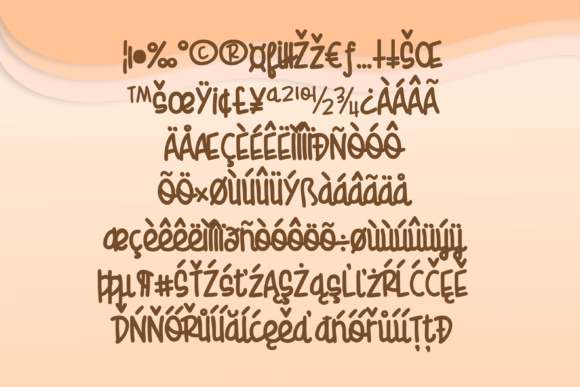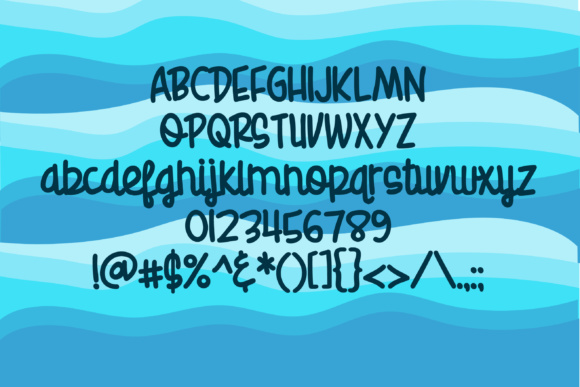
ZP Seaside Font
db-ku.com - Script & Handwritten -- This hand-written quasi-script is a fun, youthful quasi-cursive that add a bit of casual-ness to any project.